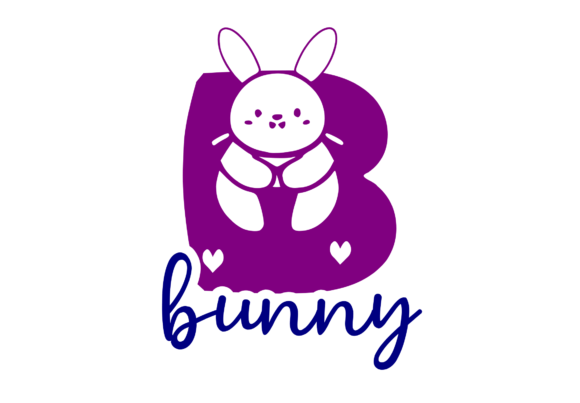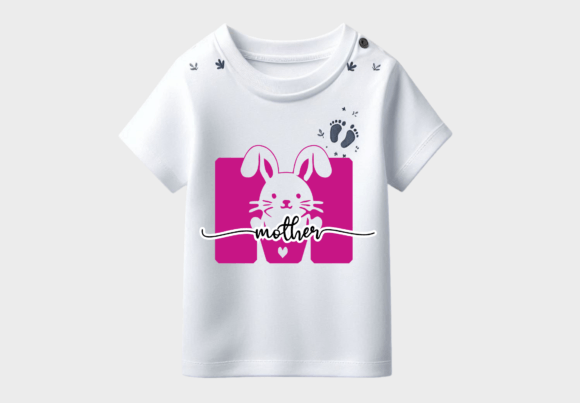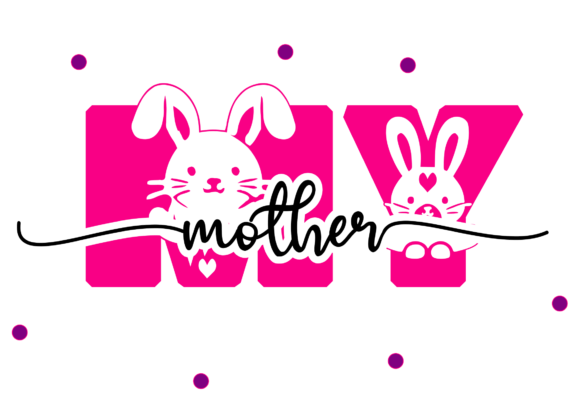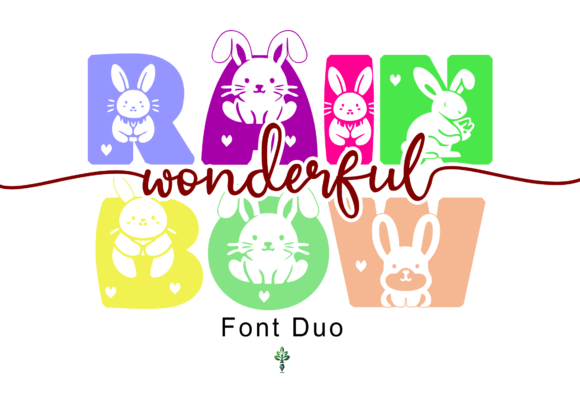
Introduction to Rainbow Wonderful Font
Immerse yourself in the stunning allure of β€œRainbow Wonderful”, a remarkable fusion of two typeface genres masterfully integrated to breathe an unconventional flair of creativity into your designs.
Drawn from the smooth grace of human penmanship, it emanates a rich and inviting ambiance, amplifying your text’s appeal Rainbow Wonderful showcases a dynamic script display that exudes an undeniable charisma and revitalizes your designs with a fresh spin.
Key Features of Rainbow Wonderful Font
Why Choose Rainbow Wonderful Font?
Rainbow Wonderful Font offers exceptional quality and versatility, making it a valuable addition to your design toolkit. Whether you’re creating for personal projects or commercial use, Rainbow Wonderful Font delivers professional results.